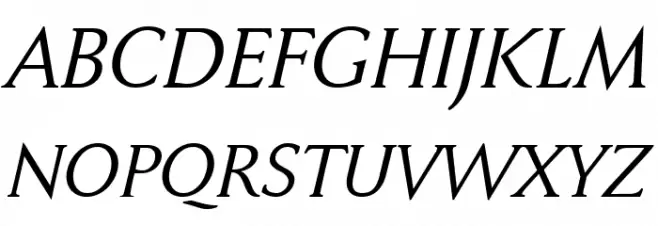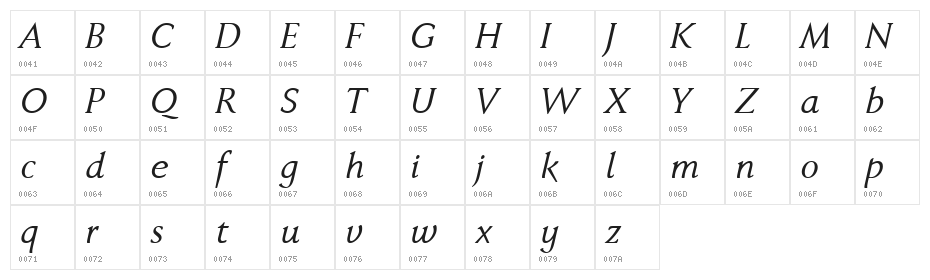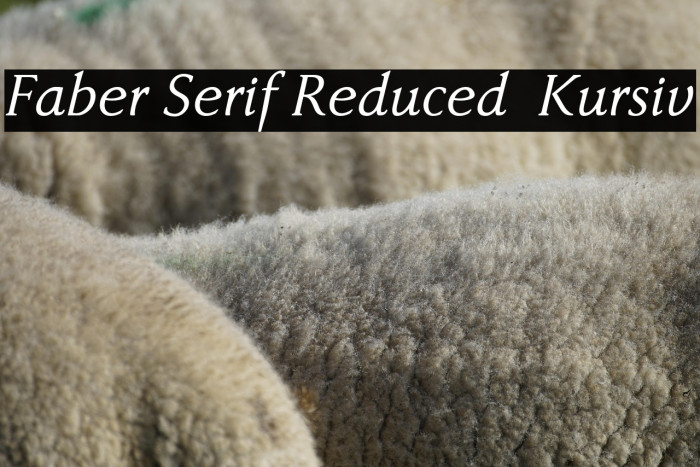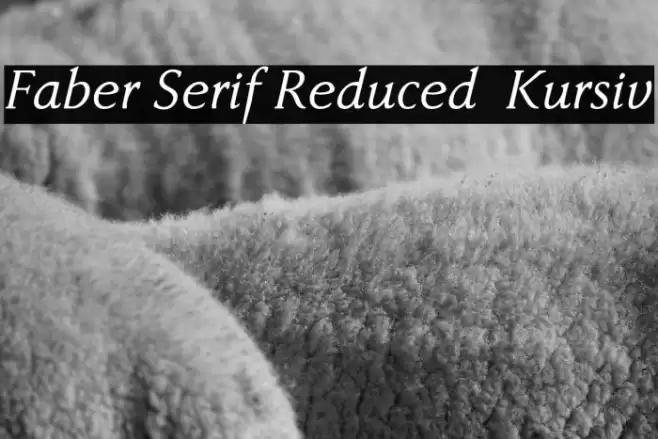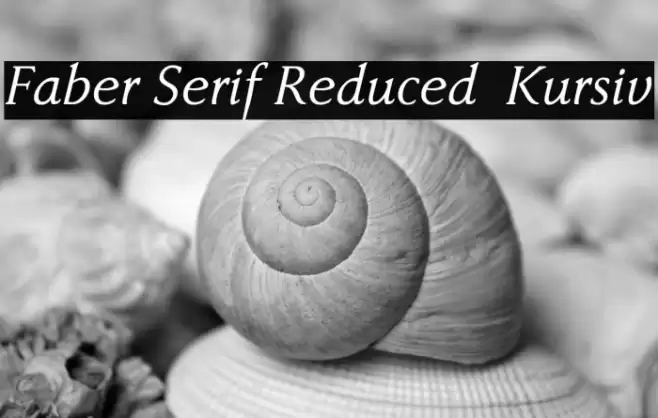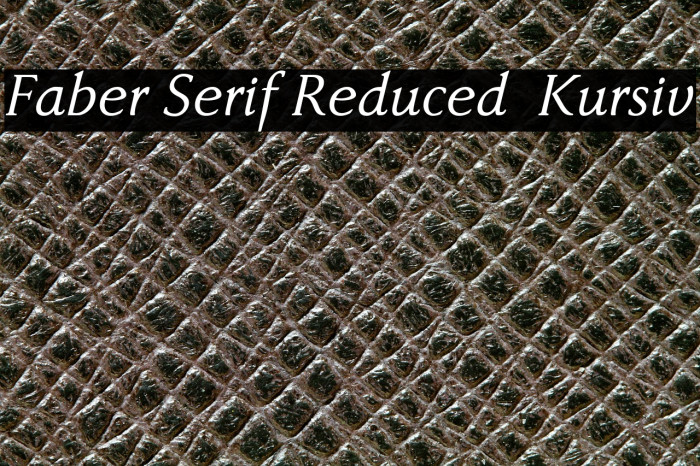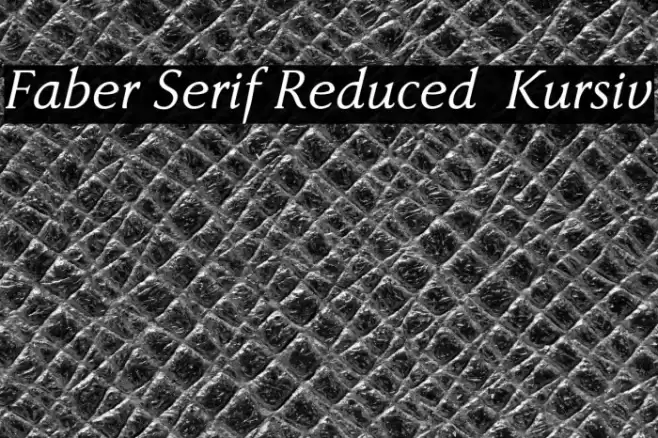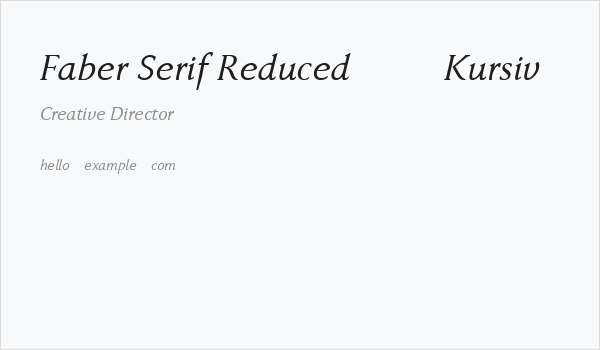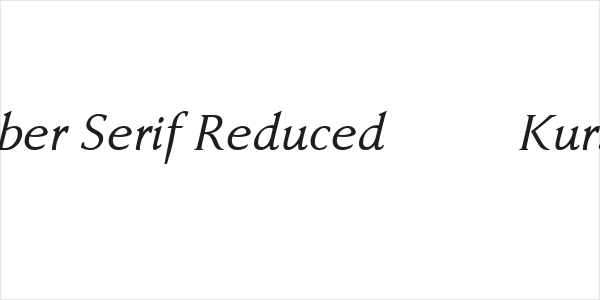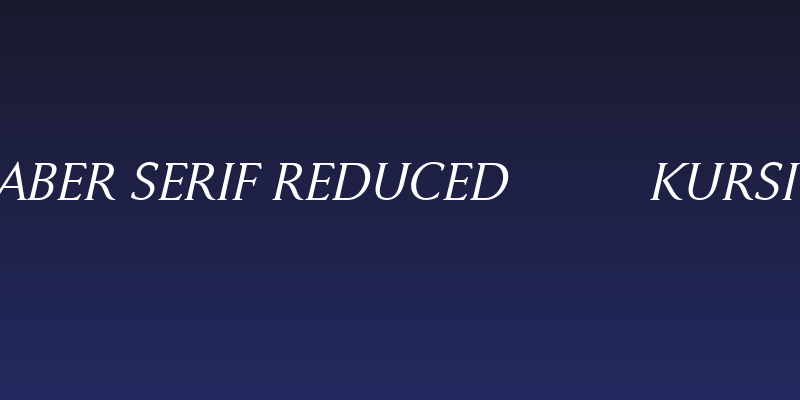
Faber Serif Reduced 56 Kursiv Font
Faber Serif Reduced 56 Kursiv Description
This font features a classic serif style with an elegant italic slant, giving it a sophisticated and timeless appearance. The characters are well-defined with subtle curves and sharp serifs, providing a refined and professional look. The uppercase letters are slightly taller than the lowercase, maintaining a balanced proportion. The italic angle adds a dynamic flow to the text, making it suitable for formal and elegant designs. The font maintains a consistent stroke width, ensuring readability while adding a touch of grace and style.
| Proposed Projects | Ideal for wedding invitations, formal documents, book covers, and elegant branding projects. |